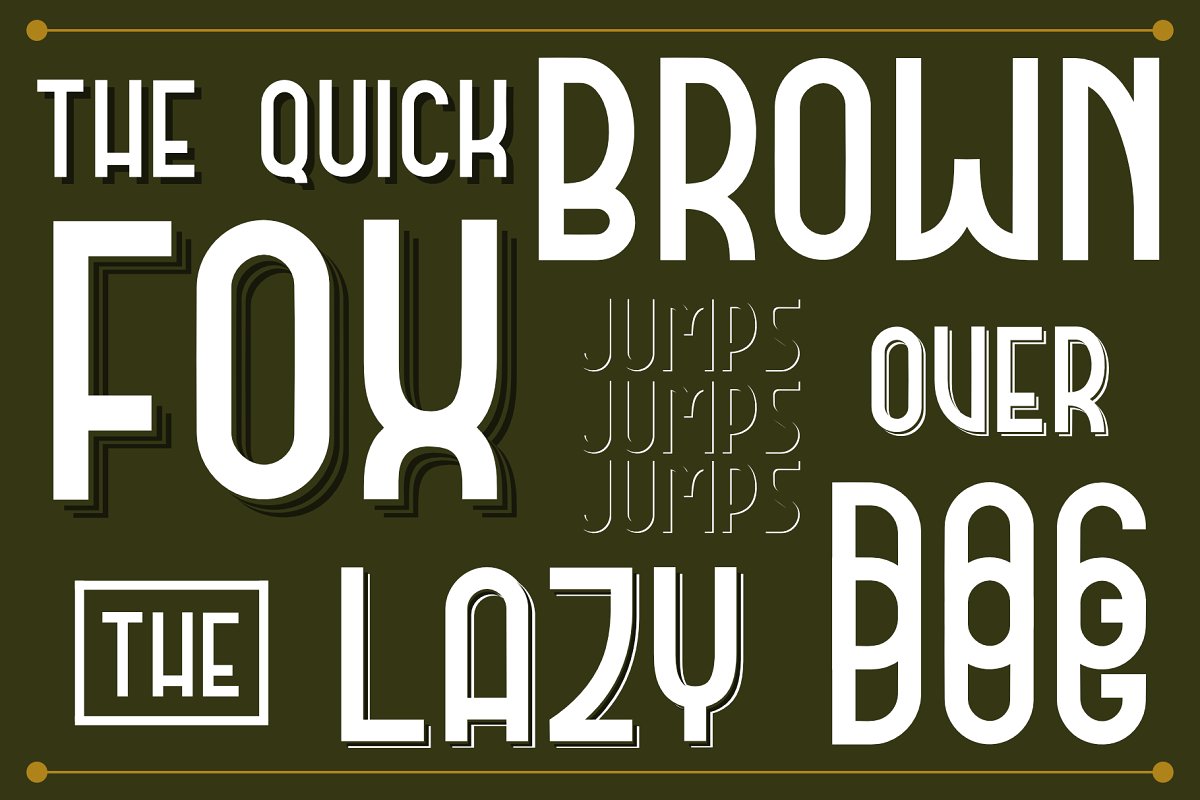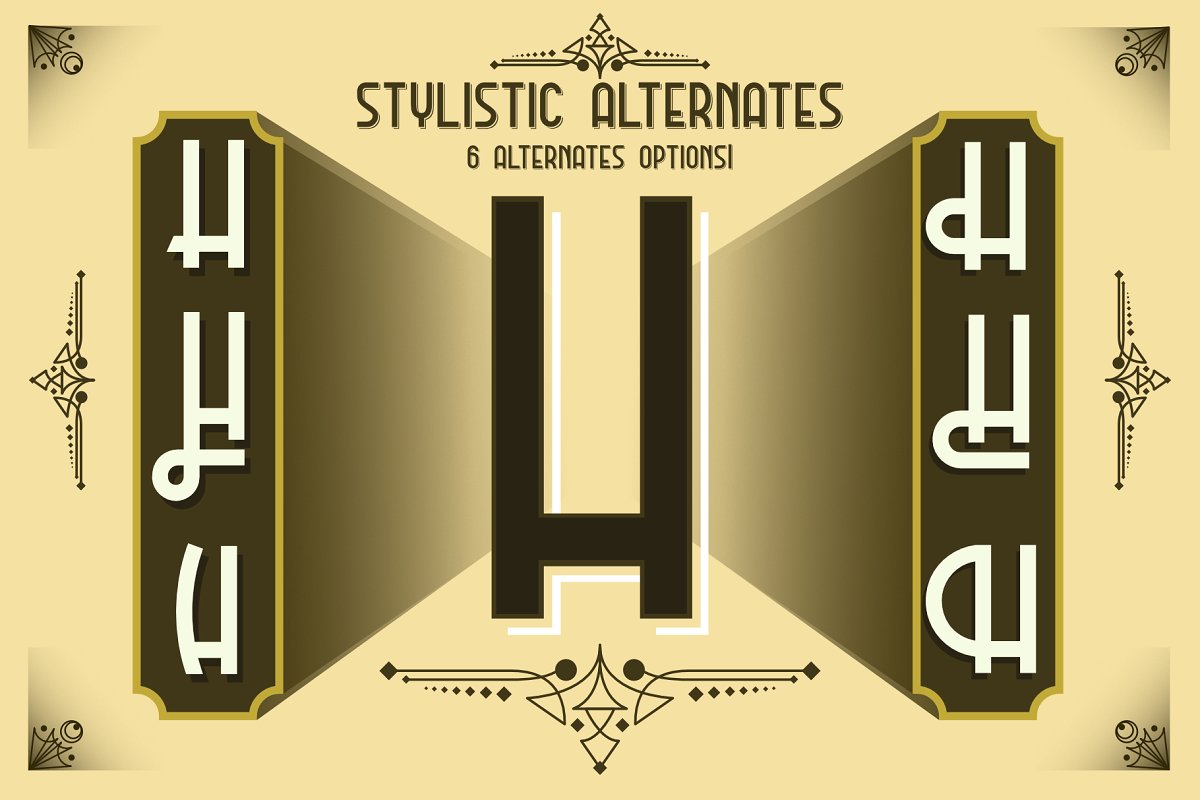
DOMCO Font Family
This is a bold, classic sans. With subtle contrast and clean lines, its the perfect all-caps font for stunning logos! Introducing DOMCO Typeface. The DOMCO comes with art deco style with the addition of a modern, classic and elegant touch, domco has 3 font variations and 6 alternative fonts in each letter so you can use it and explore it in such a way that you can realize what you want, with the added bonus in it , so don’t hesitate to try it